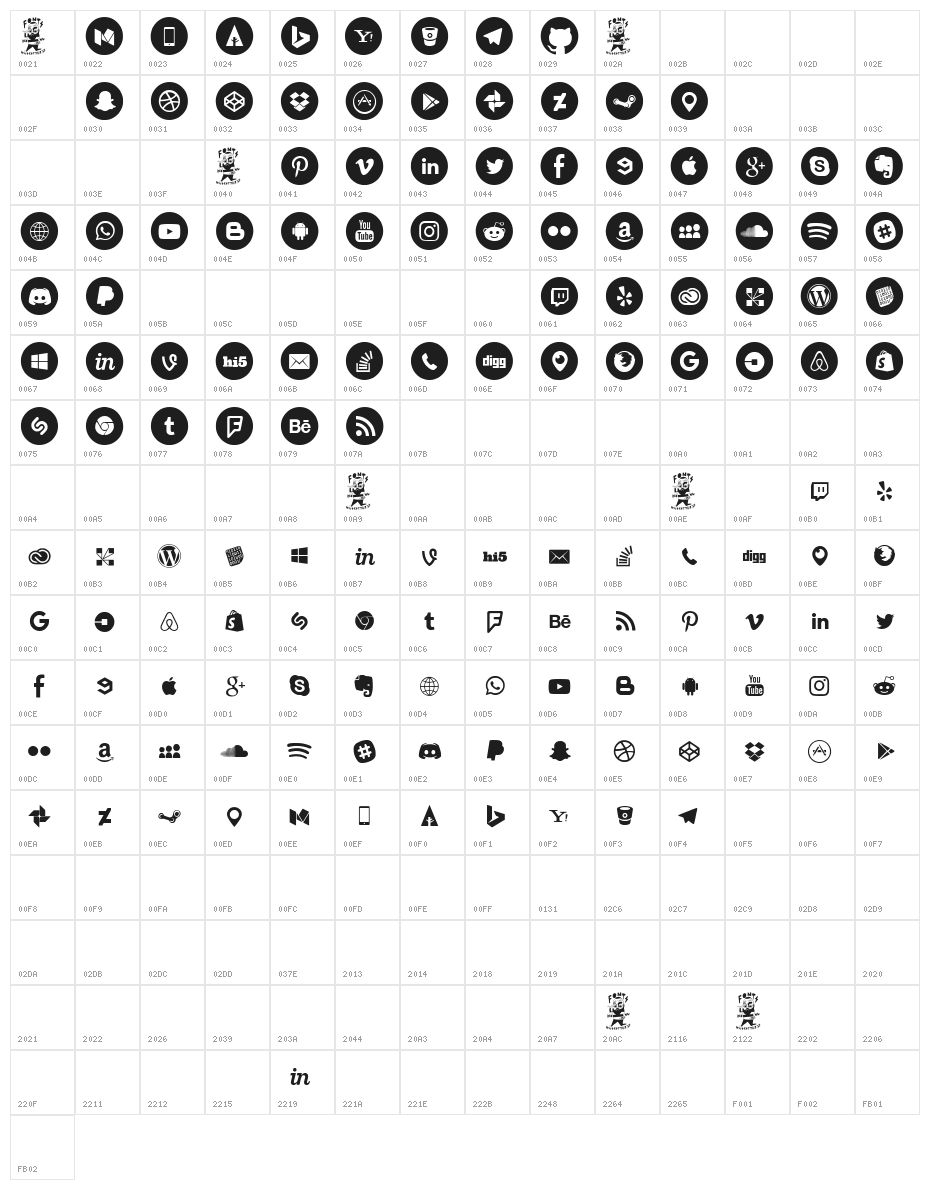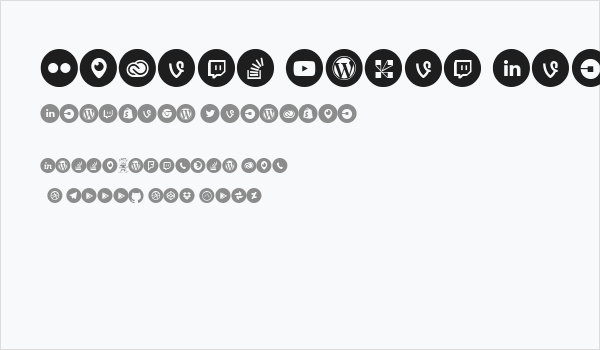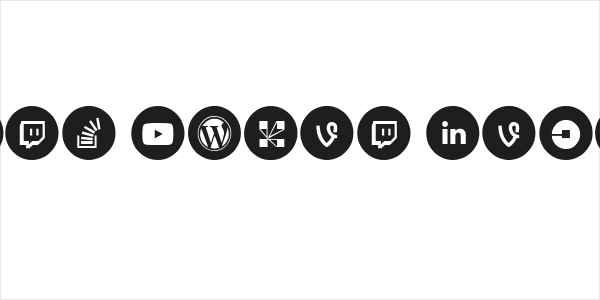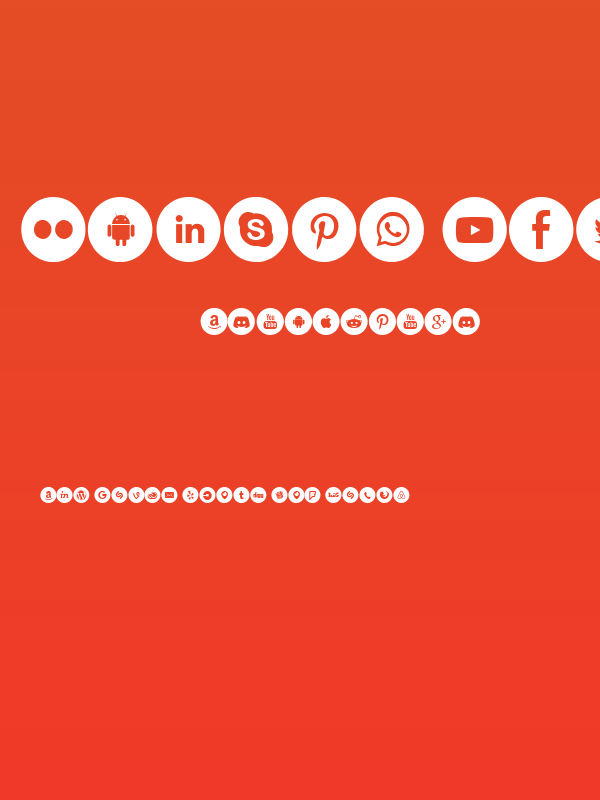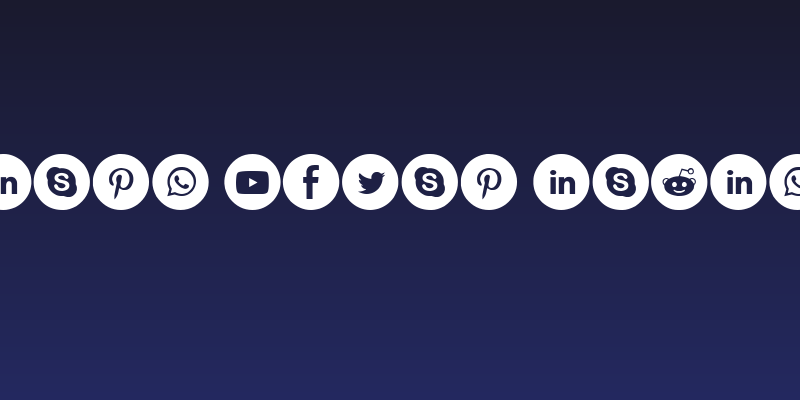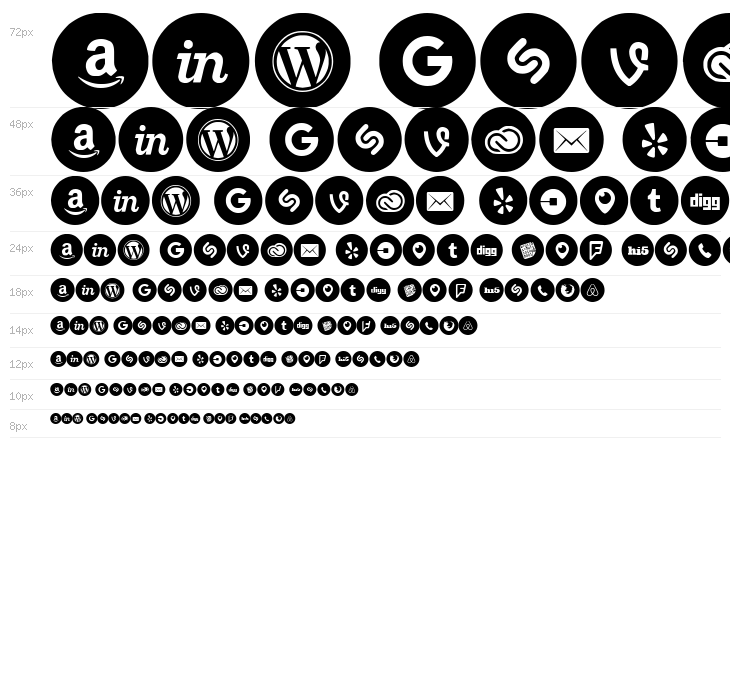
Social Media Circled Font
Social Media Circled Description
A collection of social media and tech brand icons, each enclosed within solid black circles, rendered in a consistent, bold, and minimalistic style with white glyphs for high contrast and easy recognition.
| Overall Style | Modern, Minimalist |
| Use Case | Icons, UI elements, Branding, Social media links |
| Proposed Projects | App interfaces, website footers, business cards, presentations, social media banners. |